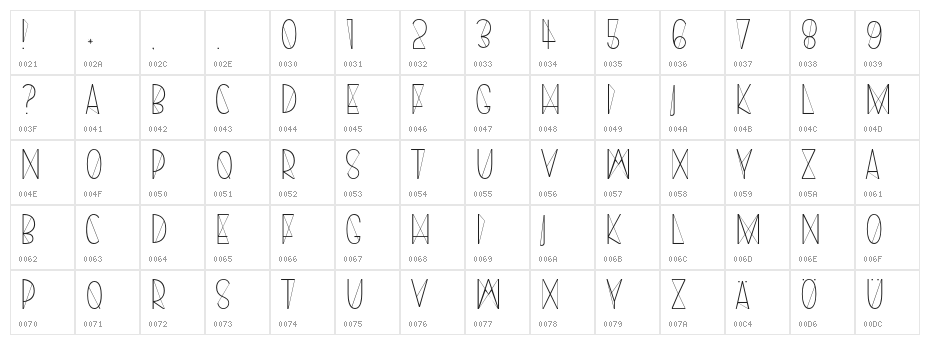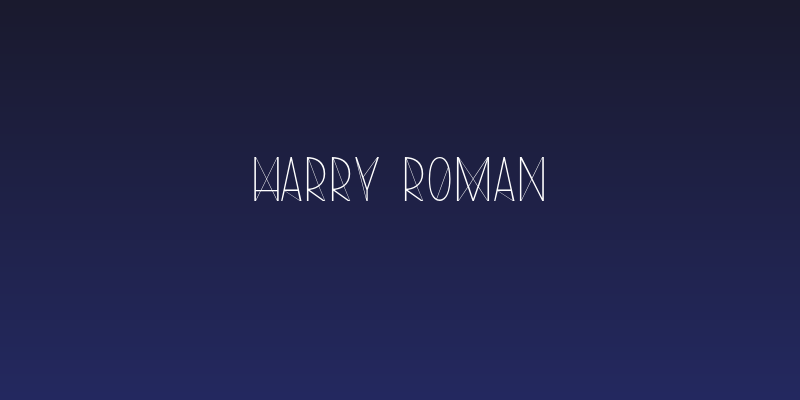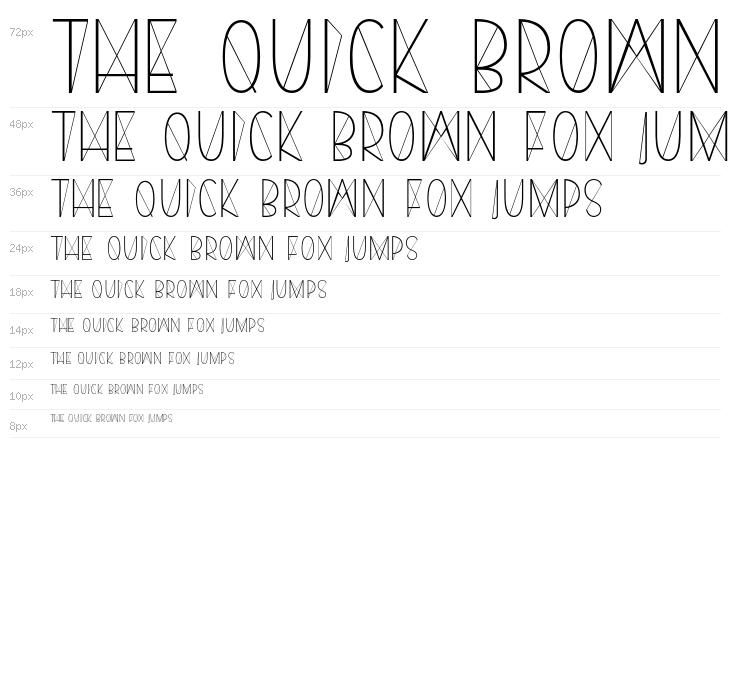
Harry Roman Font
| Progetti proposti | Ideal for use in branding, posters, album covers, and other creative projects that require a bold and artistic touch. |